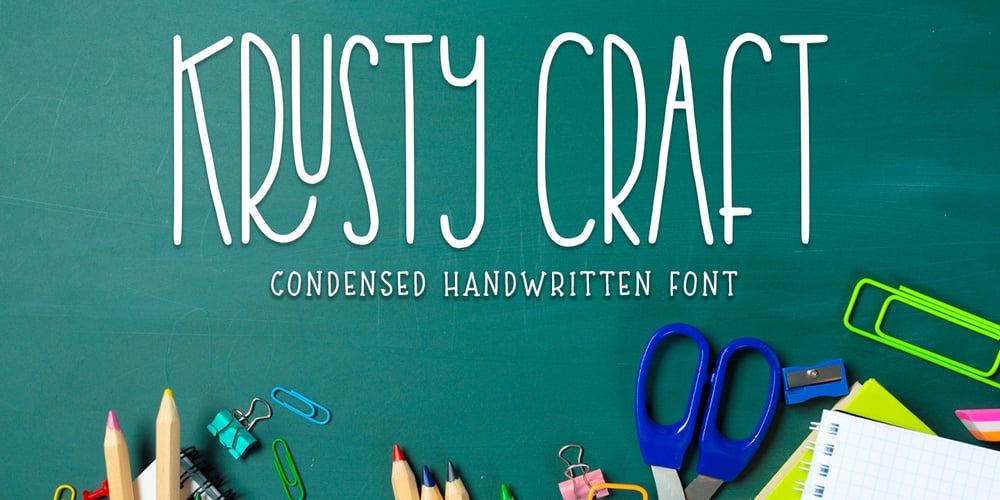
Krusty craft Font Family was designed by Abo Daniel and published by Abo Daniel. Krusty craft contains 1 styles and family package options. introducingKrusty Craft- condensed handwritten font -What’s included?- Uppercase- Lowercase- Numeral and Punctuations- Ligatures- Multilingual Support- PUA EncodedThis font is great for branding, packaging, quotes, logo, and anything your craft projectthe combination of uppercase and lowercase is great, unique, and very fun.let’s play with this awesome font!thank youAbo Daniel Studio